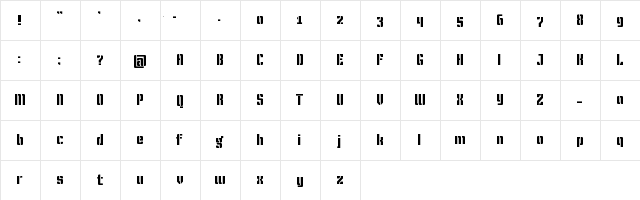
KING SANS STENCIL Regular
| Designer | Wolf Lambert |
KING SANS STENCIL borrows the utilitarian aesthetic of stencil lettering, with its characteristic cutaways and no-frills construction lending an industrial edge.
A strong choice for packaging that needs edge, warehouse aesthetics, and rough-and-ready visual identities.
Pro Tip: Use KING SANS STENCIL at large sizes on packaging, posters, or apparel where the stencil cutaways read clearly. Avoid small sizes where those gaps become visual noise.